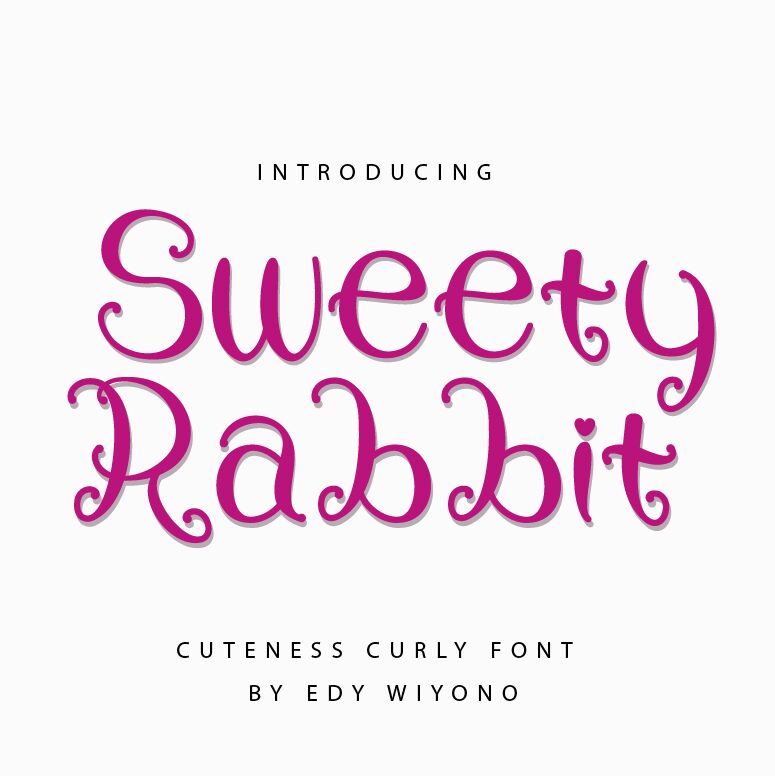
Sweety Rabbit font by Edy Wiyono is a free font inspired by nature for playful and mind-tickling designs. The typeface comes with a generous playful set of cheerful letters and inviting characters mixing both display and decorative elements. It stands out with its curly and feminine element, a perfect balance of whimsy and distinctness. A standout, around the corner, different, yet inviting, friendly, and lively typeface.
Use Sweety Rabbit in the design of vibrant packaging, products, signs, or front stores. Use it to decorate and customize your cups, t-shirts, social media posts, sneakers, and more. The keyword here is unique presence and creating memorable branding with a single word. If legibility is a concern, consider pairing it up with a minimalist, straight, legible, and familiar free font.